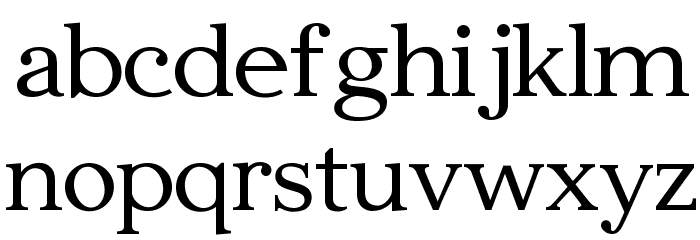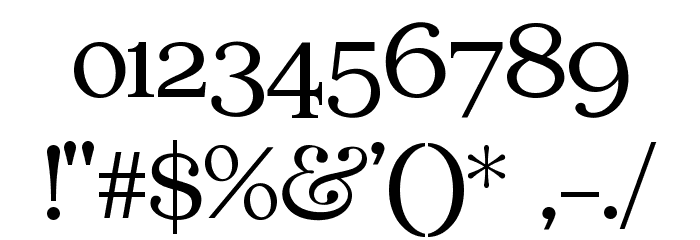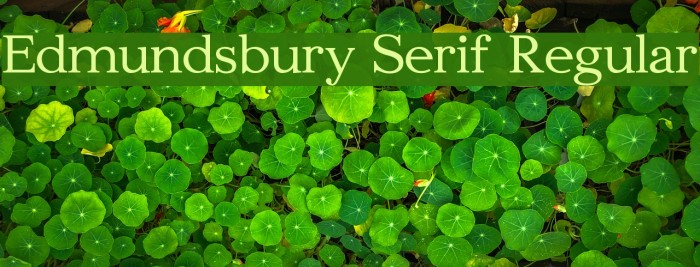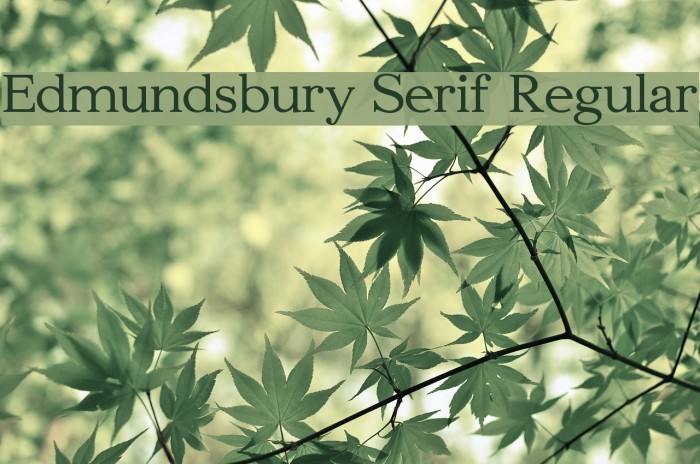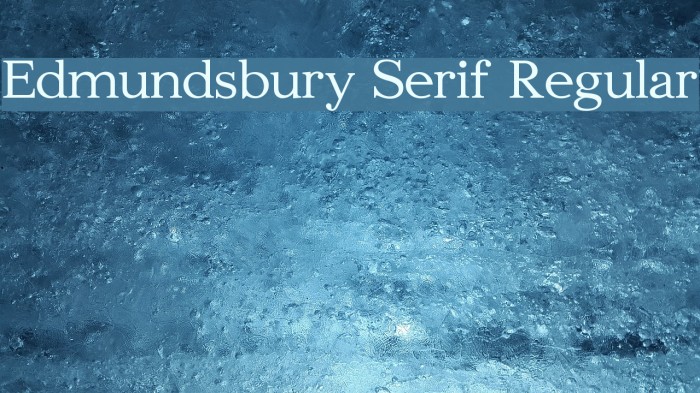
Edmundsbury Serif Regular Font
This font exhibits a classic serif style with elegant and refined strokes. The serifs are pronounced, providing a traditional and sophisticated appearance. The uppercase letters are well-proportioned, while the lowercase letters maintain a consistent x-height, ensuring readability. The numerals are clear and distinct, with a slightly modern touch. Special characters are designed with attention to detail, complementing the overall aesthetic. This font balances formality with a touch of modernity, making it versatile for various applications.
A classic serif font with elegant strokes and a refined appearance.
- Proposed Projects: Ideal for editorial design, book covers, formal invitations, and branding projects that require a touch of elegance.
- Overall Style: Classic